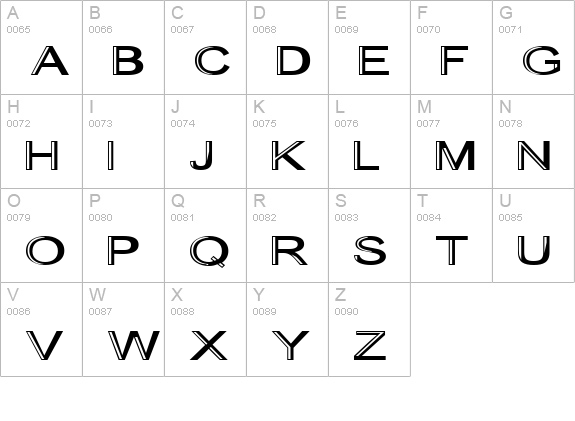
Skunkline Font Details
Introducing Skunkline, an exquisite and captivating font that effortlessly combines elegance with a touch of playfulness. Designed with meticulous attention to detail, Skunkline is the perfect choice for those seeking a versatile typeface that can adapt to any design project. With its clean lines and contemporary yet timeless aesthetic, Skunkline adds a touch of sophistication to any design. Whether used for headlines, logos, invitations, or branding materials, this font is sure to make a bold statement. But what truly sets Skunkline apart is its accessibility. This remarkable font is freely available to download at FontsMarket.com, making it an invaluable resource for designers, artists, and creatives alike. Gone are the days of compromising on quality due to budget constraints – Skunkline offers the best of both worlds, combining high-quality design with the freedom to create. Skunkline's versatility extends beyond its aesthetic appeal. With a wide range of weights and styles, this font can adapt to any project, from sleek and modern to whimsical and playful. Its legibility and readability ensure that your message is clear and impactful, no matter the medium. Whether you're designing a website, crafting a magazine layout, or working on a branding project, Skunkline is the ideal companion. Its effortless charm and timeless appeal make it a font that will stand the test of time, transcending trends and remaining relevant for years to come. So why wait? Embrace the creative freedom that Skunkline offers and elevate your designs to new heights. Download this extraordinary font for free at FontsMarket.com and unlock a world of possibilities. Let Skunkline be the secret weapon in your design arsenal, ensuring that your work leaves a lasting impression.